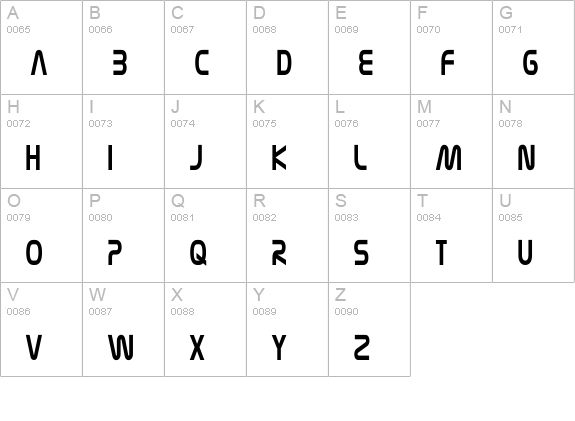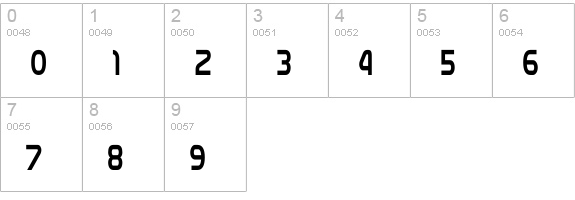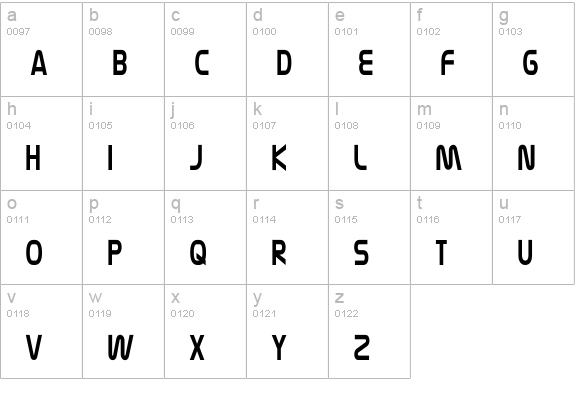
Nasalization Condensed is a distinctive, condensed-width variant in the Nasalization typeface family \xE2\x80\x94 well suited to design and typography projects.
Nasalization Condensed font is a sleek and modern typeface that exudes a sense of sophistication and innovation. Its condensed design makes it perfect for headlines, banners, and other display purposes where space is limited but impact is crucial. The sharp edges and geometric shapes give this font a futuristic and tech-savvy look, making it ideal for projects that require a contemporary touch. What's even better is that Nasalization Condensed font is completely free to download at FontsMarket.com. This means you can easily access this stylish and versatile font for all your design needs without any cost. Whether you're working on branding materials, website design, or any other creative project, Nasalization Condensed font is sure to elevate your work with its clean lines and modern aesthetic. Download it now and add a touch of sophistication to your designs!